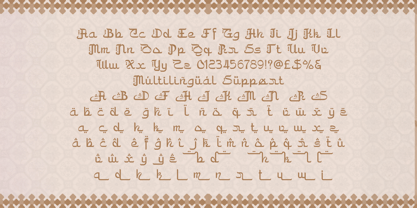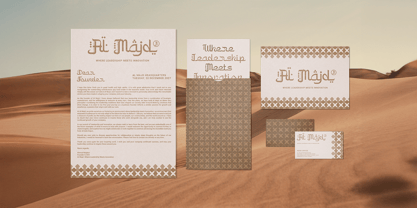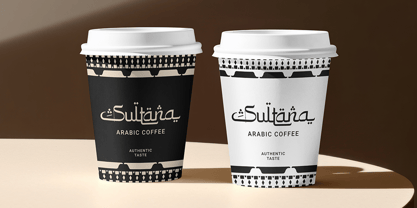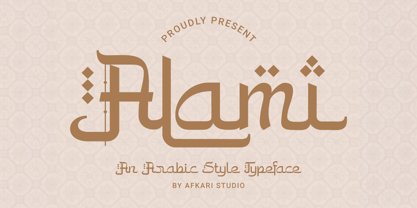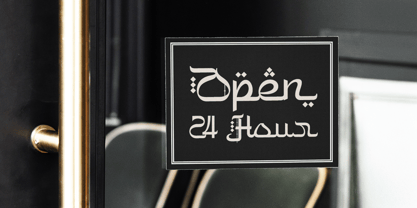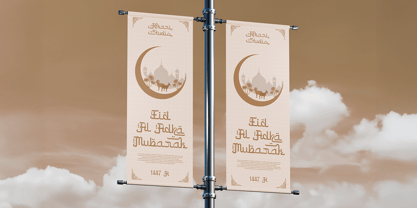
Alami
by Afkari Studio
The Alami Font Family was designed by Musthafa Kamal Emje and published by Afkari Studio. Alami contains 1 styles. More about this family
Alami is a modern Arabic script typography that beautifully blends the classic charm of Arabic calligraphy with a sleek, contemporary touch. Designed for versatility and visual impact, this Arabic font style is perfect for designers seeking cultural depth with modern flair.
Whether you're designing a halal brand, crafting visuals for Ramadan and Eid, or adding a cultural touch to your packaging or social media content — Alami helps your message feel authentic, warm, and full of character.
Features;
- Uppercase & lowercase letters, numbers, punctuation
- Beautiful alternates and stylish ligatures
- Multilingual support including ä ö ü Ä Ö Ü ß ¿ ¡
Let Alami elevate your design with a graceful blend of culture and creativity — where Arabic tradition meets modern style.
Designers: Musthafa Kamal Emje
Foundry: Afkari Studio